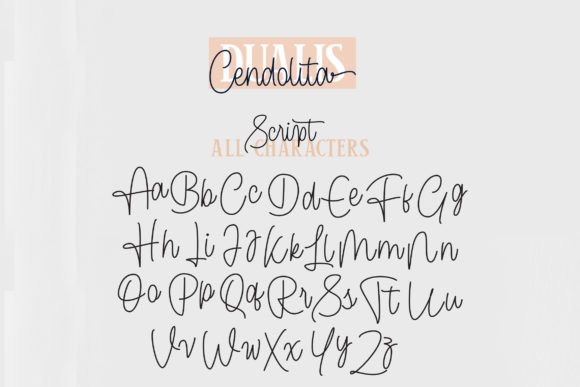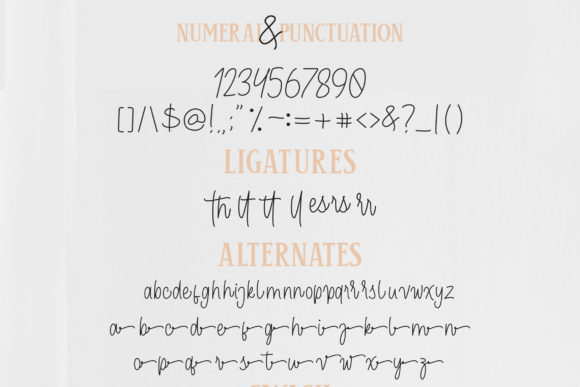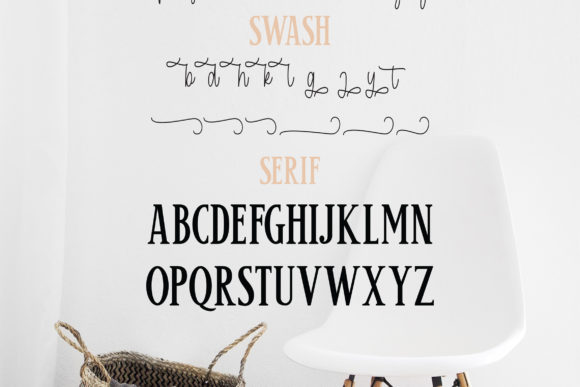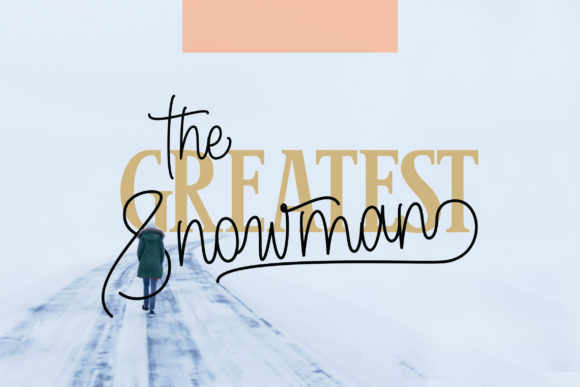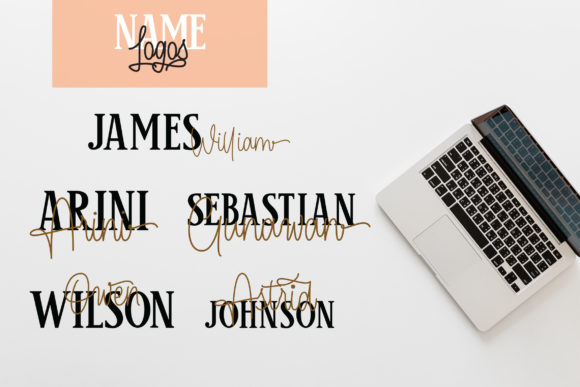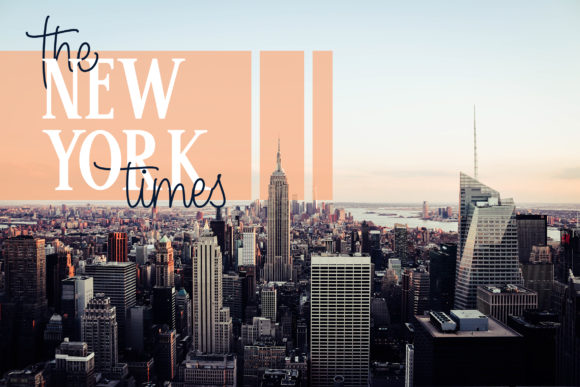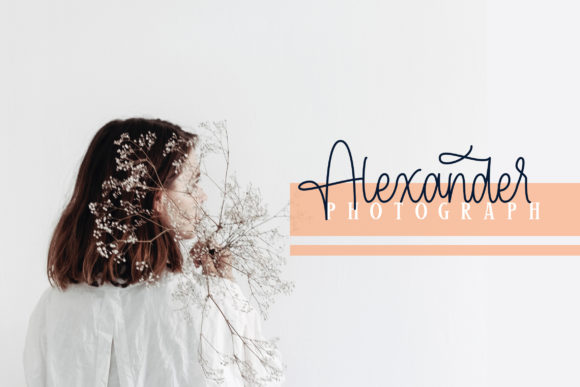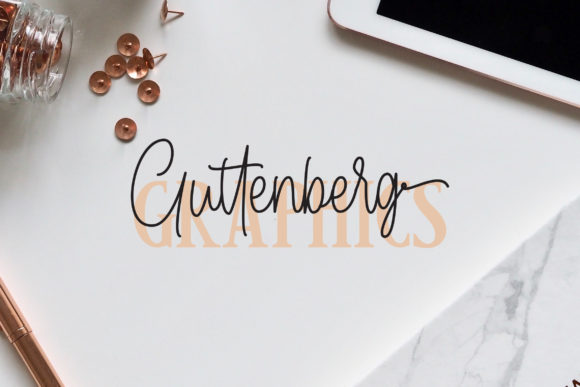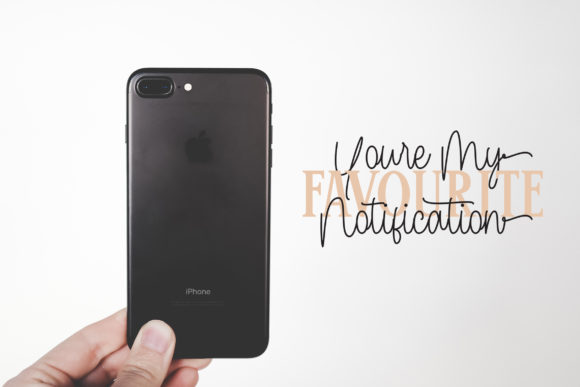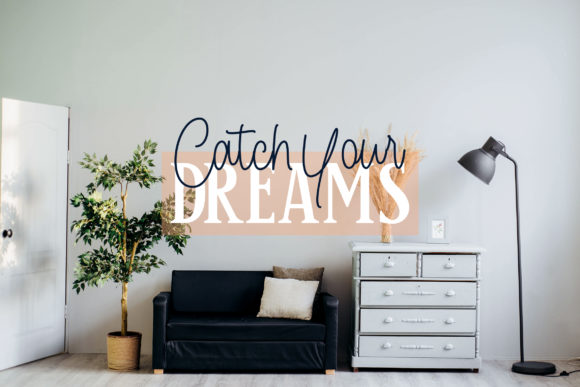
Cendolita Duo Font
About Cendolita Duo Font
The Cendolita is a fun font duo. It was inspired by classic posters and includes a striking serif and an elegant script version.
It can be used for logos, letterheads, posters, apparel designs, labels, and much more!